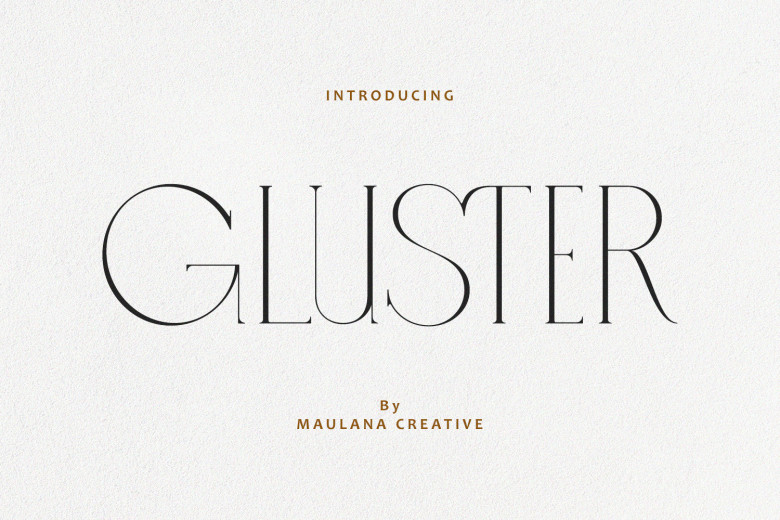
Gluster Font
Gluster – thin letter tall serif font. Fall in love with the font style and use it to create wonderful wedding invites, beautiful stationary art, attention-grabbing social media posts, and many more sorceries!
Gluster Serif Font